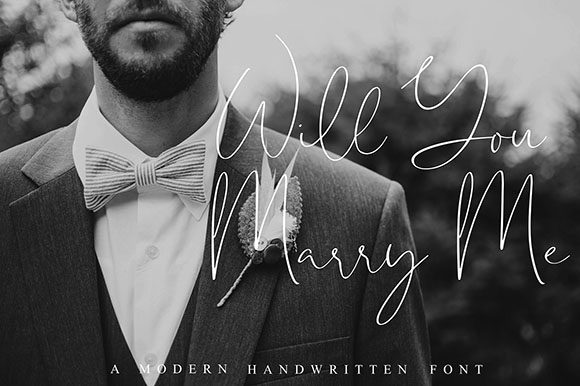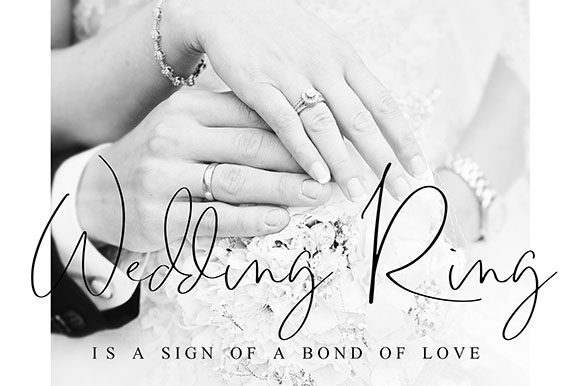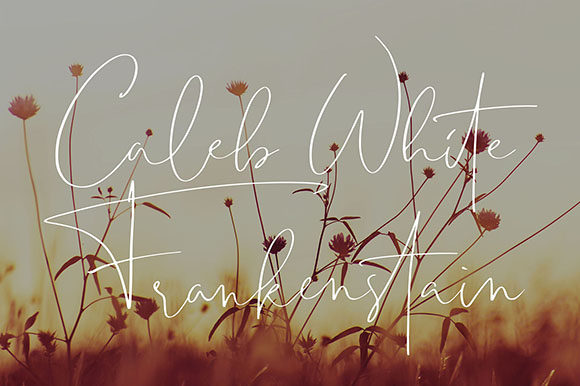
HomeScript FontsKastangel Font Script Fonts Kastangel Font FacebookXPinterestWhatsApp Kastangel Font Poster 2 Kastangel Font Poster 3 Kastangel Font Poster 4 About Kastangel Font Kastangel is a dazzling and charming handwritten font. Get inspired by its timeless charm! DOWNLOAD ON CREATIVE FABRICAThis font is sold and delivered by Creative Fabrica. Font Canyon may earn a commission if you buy through this link. People also explored Quiet Font Bookmark Font Lembaten Font Hopeless Diamond Font Friday Beach Font Beauty Amanda Font Sweetly Something Font Boboiboy Font Genta Lovena Font 284 0 TagsKastangel Font Previous articleBeautify Script FontNext articleAstone Blood Font LEAVE A REPLY Cancel reply Comment: Please enter your comment! Name:* Please enter your name here Email:* You have entered an incorrect email address! Please enter your email address here Website: Save my name, email, and website in this browser for the next time I comment. Personal Use Free Goldsaber Personal Use Free Read more about this font Bellarin Personal Use Free Read more about this font Shelly Personal Use Free Read more about this font Scarlove Personal Use Free Read more about this font BLOG Free vs Paid Fonts: Why Investing in Premium Fonts Is Worth It Free vs Paid Fonts: Why Premium Fonts Are Worth It in 2025 The debate of free vs paid fonts continues in the design world. While... Using Fonts in Digital Marketing: Tips to Strengthen Your Brand Identity To increase your work productivity, choose the most readable fonts. 5 Fonts That Will Dominate Design Trends in 2026